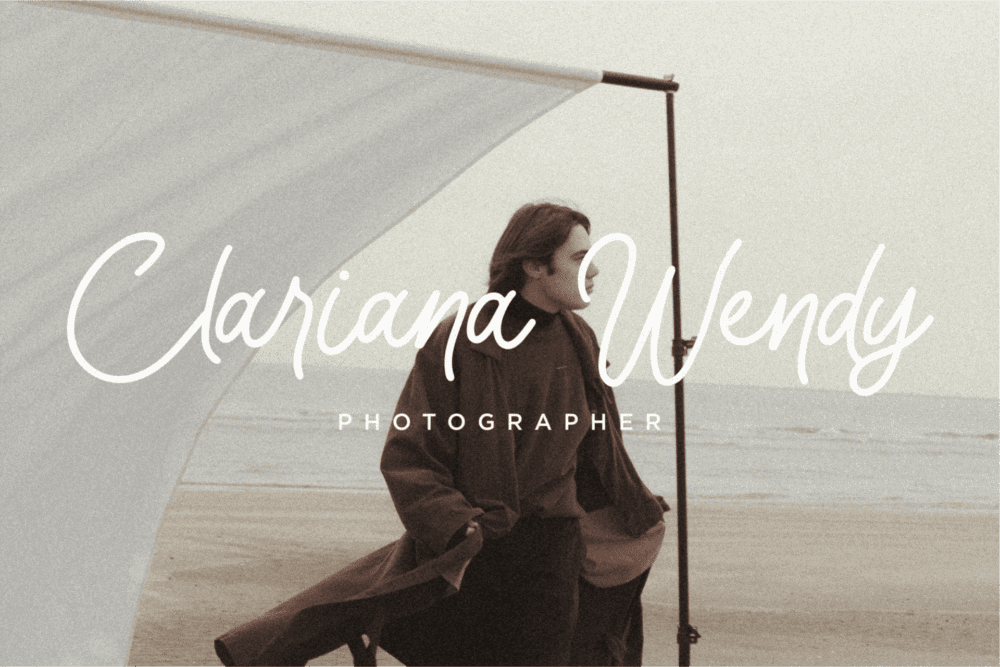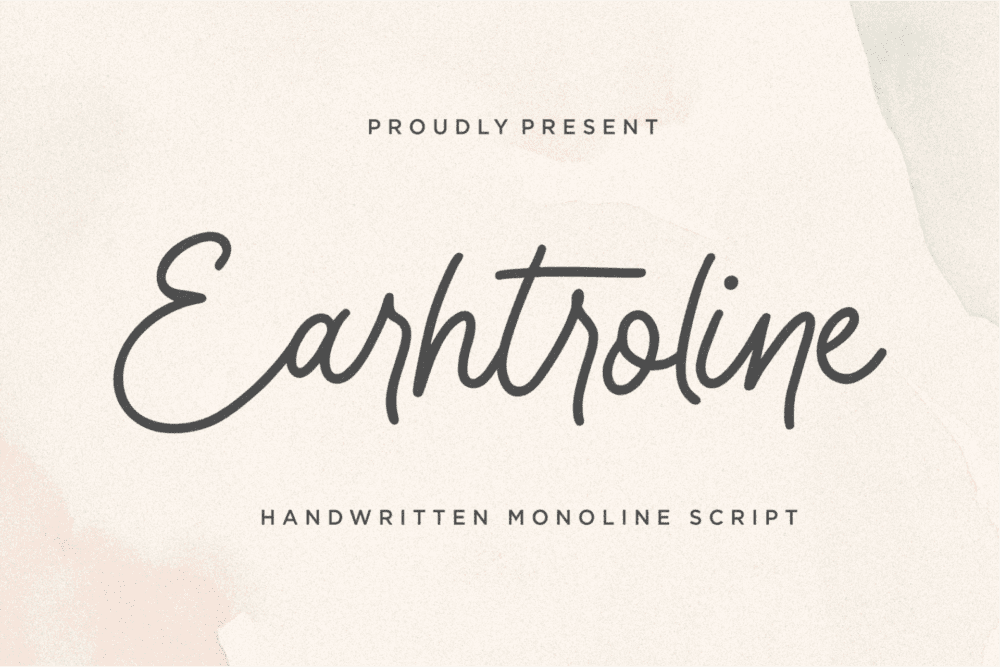
Earhtroline Font
Earhtroline is an enchanting handwritten font. This versatile script font has a wide spectrum of applications ranging from greeting cards to headlines.